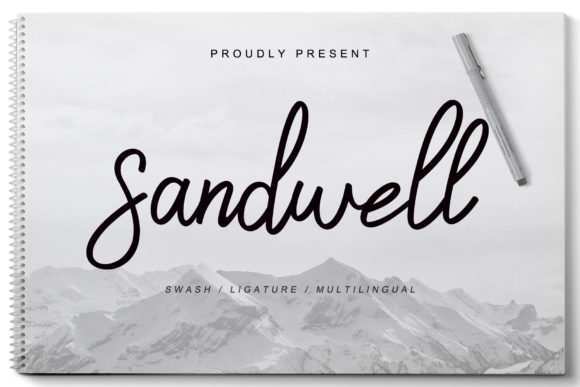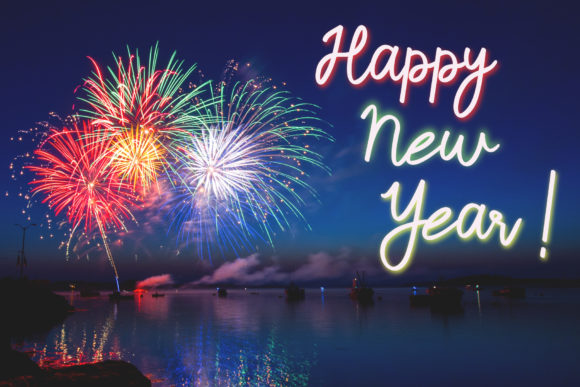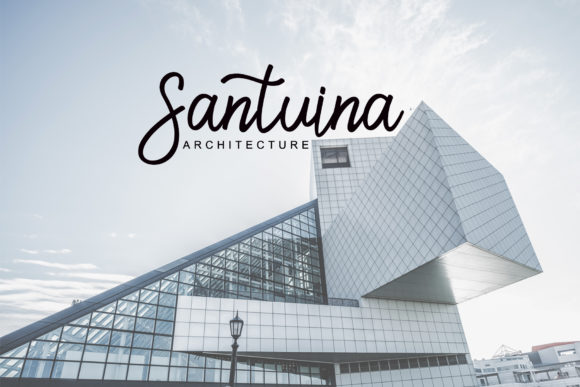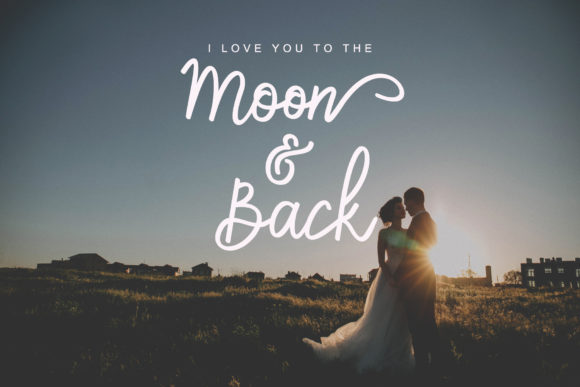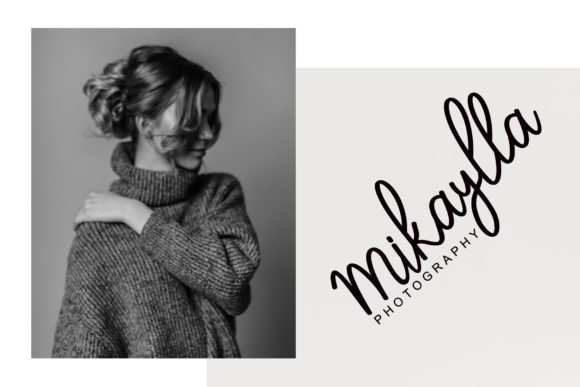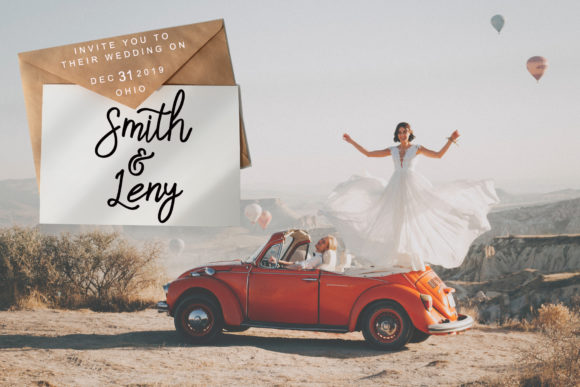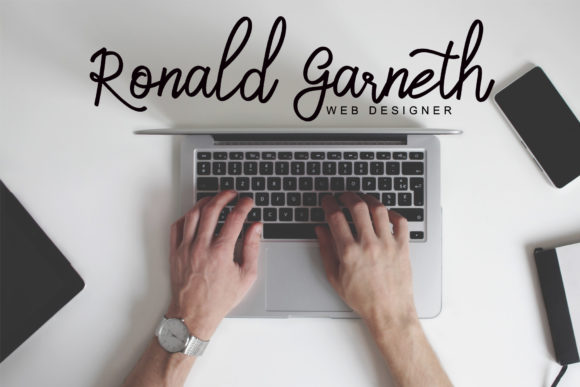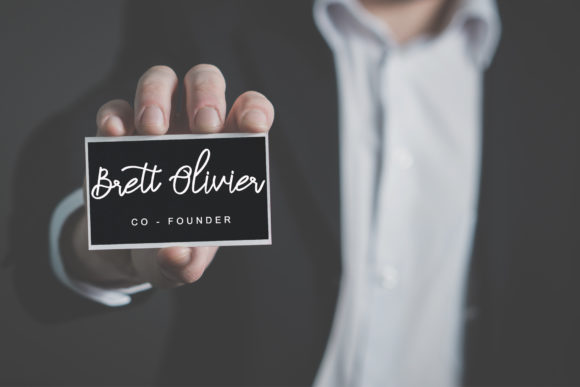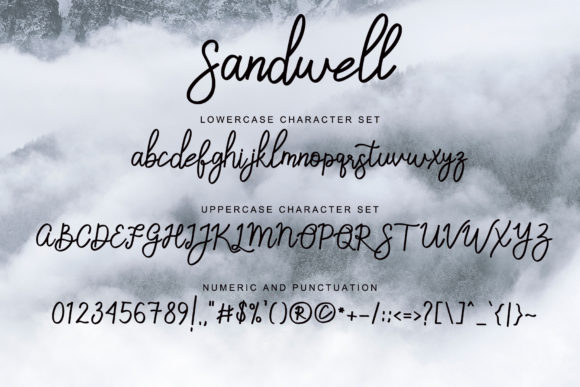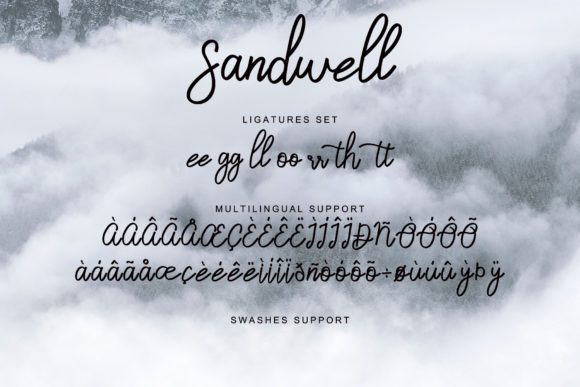
Sandwell Font
About Sandwell Font
Sandwell is an incredibly elegant, yet casual and simple font script featuring a natural look in its ligatures & beautiful swashes. Sandwell is perfect for logos, wedding invitations, posters, social media posts, signatures and much more!